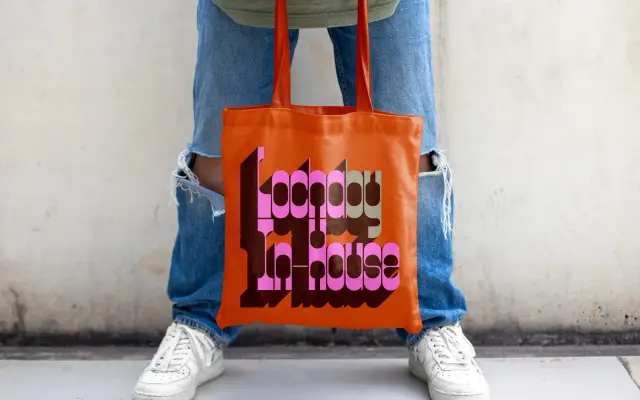
Locha
In-House Intl · Alexander Wright, Michu Benaim Steiner, Rodrigo Fuenzalida
A softly geometric sans in five stylistic variants, drawing on the rounded warmth of 1970s hand-painted signage for branding, editorial and environmental use.
Designed by Alexander Wright and Michu Benaim Steiner at In-House International, with type development by Rodrigo Fuenzalida, Locha takes its cues from the circular lettering of 1970s storefronts and public signage. Five styles cover the range from a straightforward Regular and a sturdy Slab to two diagonal variants that add rhythm and movement, plus a Soft cut for warmer applications. Extended Latin character support runs across all five styles, making it workable across a broad range of European languages.
Locha is a softly geometric sans-serif with rounded counters and flowing connections, drawing on the circular warmth of 1970s signage lettering while maintaining contemporary versatility. The Slab and Soft subfamilies extend the family beyond strict sans-serif territory, but the core construction is geometric sans.